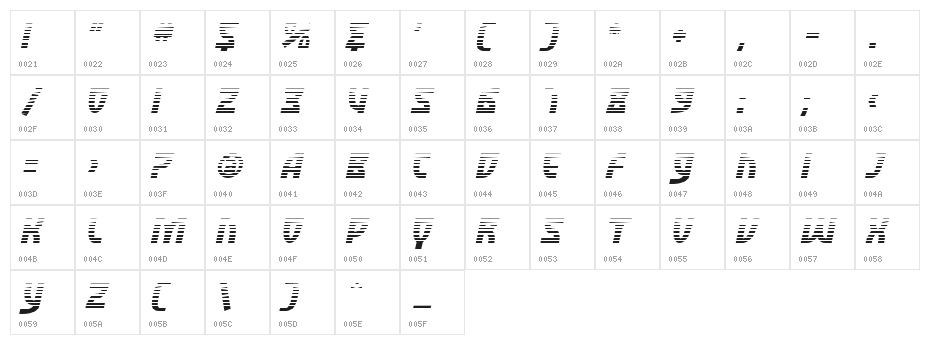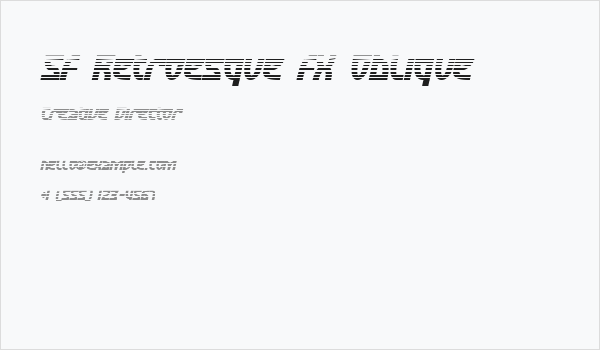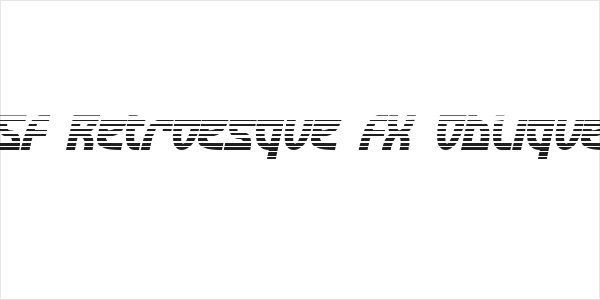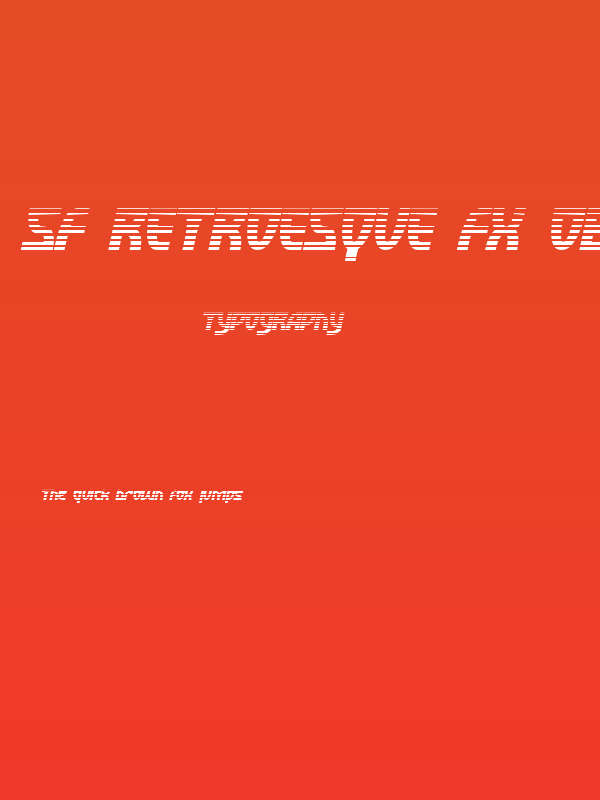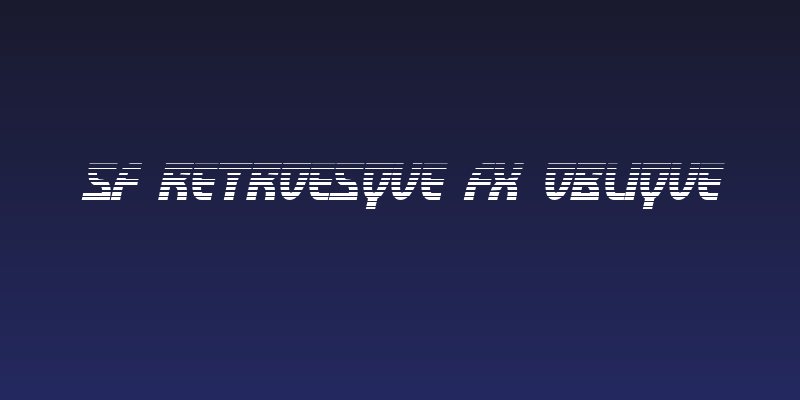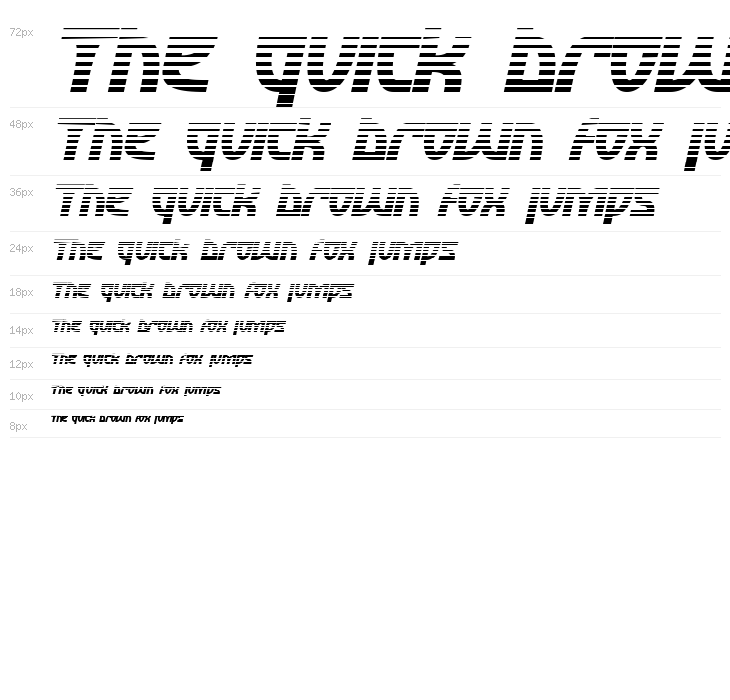
SF Retroesque FX Oblique Font
SF Retroesque FX Oblique Description
This font features a futuristic and dynamic design with a distinct oblique style. The characters are composed of horizontal lines that create a sense of movement and speed, reminiscent of digital or retro-futuristic aesthetics. The uppercase and lowercase letters maintain a consistent slant, enhancing the font's sleek and modern appearance. The numbers and special characters follow the same design principles, ensuring uniformity across all glyphs. This font's unique style makes it stand out, ideal for projects that require a bold and innovative look.
| Overall Style | Futuristic, Retro |
| Proposed Projects | Ideal for sci-fi themed designs, tech branding, video game titles, and futuristic posters. |